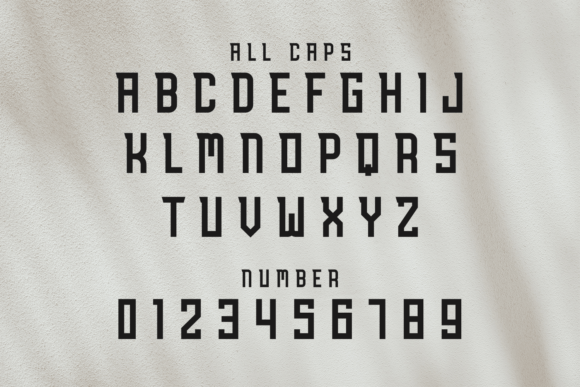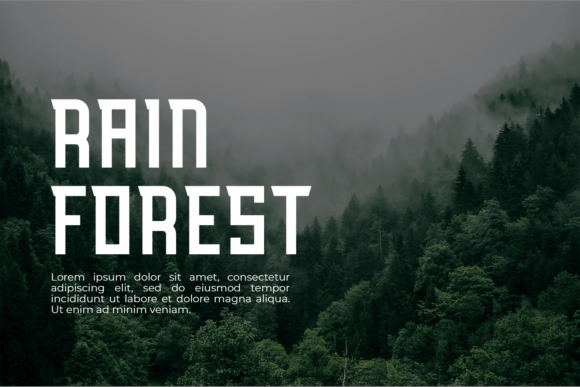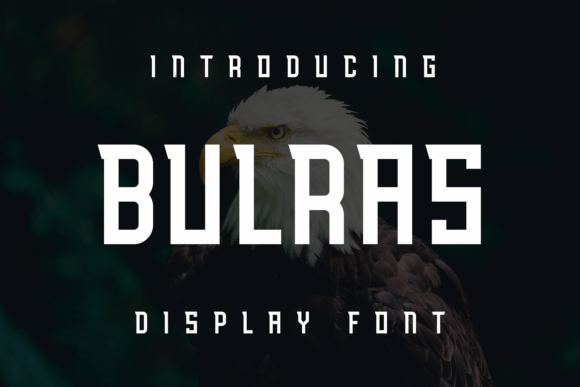
Introduction to Bulras Font
Bulras is a cool and stylish display font.
Use it to create unique t-shirt designs, wall decorations, digital designs, cards, and many more .
Why Choose Bulras Font?
Bulras Font offers exceptional quality and versatility, making it a valuable addition to your design toolkit. Whether you’re creating for personal projects or commercial use, Bulras Font delivers professional results.